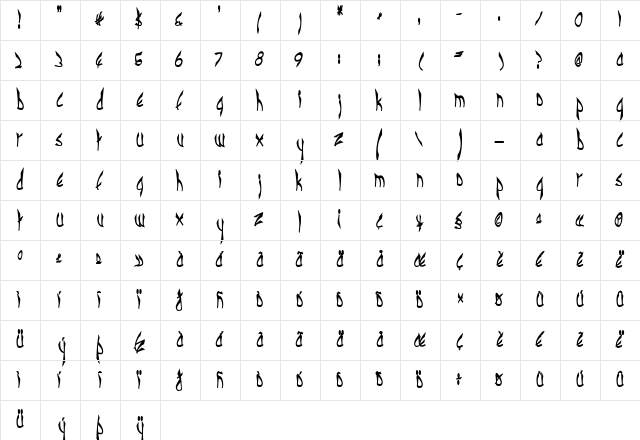
cbe Bold
| Foundry | Peter Wiegel, Wolgast |
| Designer | Peter Wiegel |
Design Context for cbe Typeface
cbe is a composed and adaptable typeface that performs quietly and consistently across a wide range of design contexts. The heavy weight commands attention and anchors typographic hierarchies.